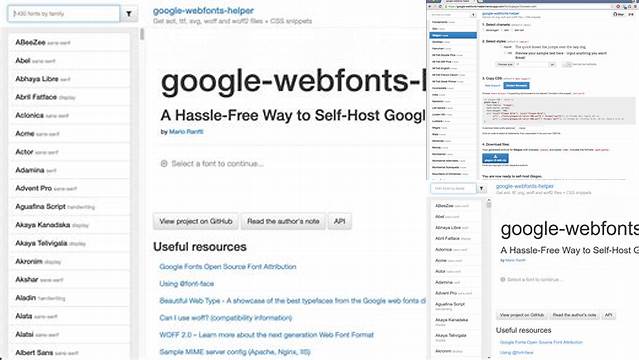
Google Fonts Optimization: Webfonts Helper, Heroku, And Latin Subsets
Hey guys! Ever found yourself struggling to get custom fonts working on your website? You're not alone. It can be a real headache. But don't worry, because today, we're diving deep into a fantastic tool called Google Webfonts Helper, and how it can help you, especially when paired with Herokuapp, your font choices, and the power of font subsets, specifically for the Latin language. We'll also talk about the popular Inter font. This article is your ultimate guide to understanding and implementing custom fonts seamlessly.
What is Google Webfonts Helper and Why Should You Care?
So, what exactly is Google Webfonts Helper? Think of it as your personal font assistant. It's a free, online tool designed to simplify the process of using Google Fonts on your website. Using Google Fonts is super easy. You just grab the embed code and you're off to the races, right? Well, not always. This tool generates the necessary CSS and font files, allowing you to self-host Google Fonts. The main reason you should care is that self-hosting fonts can dramatically improve your website's performance. When you self-host, you control the loading of the fonts, which means you can optimize them for speed. Faster loading times are crucial for a good user experience, and let's be real, nobody likes a slow website. Self-hosting also gives you more control over font subsets, which we'll get into later, and helps with privacy compliance. Google Webfonts Helper streamlines this process, generating the necessary code and files with just a few clicks. This makes it a game-changer for anyone looking to enhance their website's typography without the hassle.
The Core Benefits of Using Google Webfonts Helper
Let's break down the major advantages: Faster Loading Times: One of the biggest perks. Self-hosting allows you to optimize font files, resulting in quicker page loads. Customization: You have complete control over which font files you use. You can pick and choose the font weights and styles you need, which further reduces file sizes. Privacy Compliance: Self-hosting helps you comply with privacy regulations. Full Control: You're in charge of every aspect of your font implementation. This includes where the files are hosted, how they're loaded, and how they're served. This level of control is invaluable for optimizing your website. SEO Benefits: Did you know that faster loading speeds can improve your search engine rankings? Google loves fast websites, and using Google Webfonts Helper can contribute to that. Ease of Use: Despite the technical benefits, the tool is incredibly user-friendly. No coding expertise is required to generate the necessary files.
Understanding Font Subsets: Why Latin is Important
Let's talk about font subsets. When you download fonts, they often include a wide range of characters to support many languages. However, if your website only uses English, you don't need all of those characters. This is where subsets come in. Subsets allow you to select only the characters you need, significantly reducing the size of your font files. Smaller font files mean faster loading times. For most websites, especially those targeting an English-speaking audience, the Latin subset is the most important. The Latin subset includes all the standard characters used in the English language, plus characters from many other European languages. By using the Latin subset, you can optimize your fonts for speed and efficiency without sacrificing support for common characters. Choosing the right subset will give you that needed boost for site loading times. The Latin subset generally offers the best balance between coverage and file size.
Maximizing Performance with Font Subsetting
Here's how font subsetting boosts performance: Reduced File Size: The main advantage. Smaller files download faster, especially on mobile devices and slower internet connections. Faster Page Loading: Reduced file size translates directly to faster page load times, resulting in a better user experience and improved SEO. Improved User Experience: Faster loading times mean users see your content sooner, which keeps them engaged. Bandwidth Savings: Smaller font files mean you use less bandwidth, which can be especially beneficial if you have a large number of visitors or are paying for bandwidth. Easy Implementation: Google Webfonts Helper lets you choose your subsets with a simple click. This makes it easy to optimize your font files without any advanced technical skills. Choosing the proper subsets can significantly improve the user experience and site performance.
The Popularity of the Inter Font and How to Use It
Inter is a super popular font. It's a modern, geometric sans-serif typeface designed for use in user interfaces, specifically designed for readability. Inter has become a go-to choice for many websites. Inter's clear design is very readable on screens. It has a high x-height, which is very important for readability. Inter is also available in a wide range of weights and styles, which gives you a lot of flexibility in your design. Getting started with the Inter font is easy, especially when using Google Webfonts Helper. You just search for Inter, select the weights and styles you want, and then choose your subsets (Latin is a great starting point). Once you've configured your settings, Google Webfonts Helper will generate the necessary CSS and font files. Simply download the files, host them on Herokuapp, and update your CSS to reference the new font files. Your website will look great and load fast.
Key Features of Inter Font
Here are some of Inter's defining features: High Readability: Designed specifically for readability on screens. The font has a very clear and modern design, making it super easy on the eyes. Geometric Design: Its clean, geometric design is perfect for both headlines and body text. This makes the font versatile and easy to apply to any design. Multiple Weights and Styles: Inter has a broad range of weights and styles, so you can create a more diverse design. Open Source: Free to use for personal and commercial projects, Inter is a great option for a wide variety of projects. Excellent for User Interfaces: Inter is a perfect fit for websites, mobile apps, and other digital interfaces. Its clean lines and good legibility make it a top choice for designers.
Conclusion: Optimize Your Website’s Fonts Today!
In conclusion, Google Webfonts Helper and Herokuapp provide a simple and powerful way to optimize your website's fonts. With the added advantages of font subsets, particularly the Latin subset, and the popularity of fonts like Inter, you can greatly improve your website's performance, user experience, and SEO. Take action today, and start optimizing your website’s typography! This guide offers the tools and steps you need to implement custom fonts efficiently and effectively. Give it a shot, and see the difference it makes!